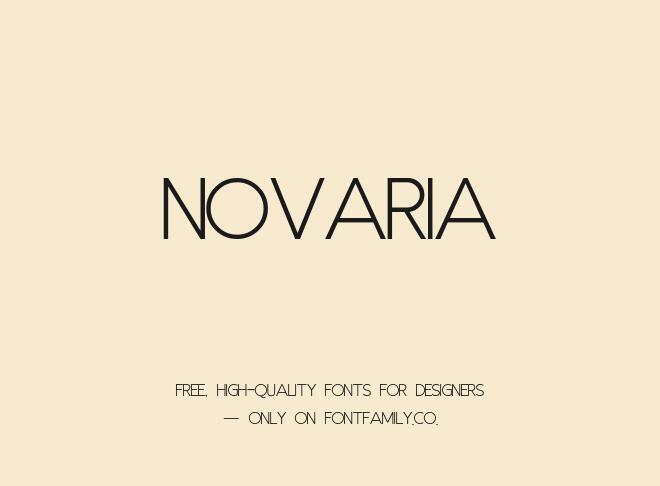
Novaria Font
Novaria Font is a modern, elegant, and decorative typeface with a touch of sophistication. Its sleek lines and minimalist design make it an excellent choice for branding, logo design, and headline text. Novaria Font stands out for its unique character shapes and spacing, offering a fresh, contemporary take on traditional serif fonts. It is comparable to fonts like Helvetica Neue and Futura, but with a distinct flair that sets it apart. Its versatility makes it a go-to font for designers who want to add a touch of modern elegance to their projects. The font's decorative elements add a unique charm, making it ideal for display purposes. With Novaria Font, designers can create eye-catching designs that communicate effectively and leave a lasting impression.